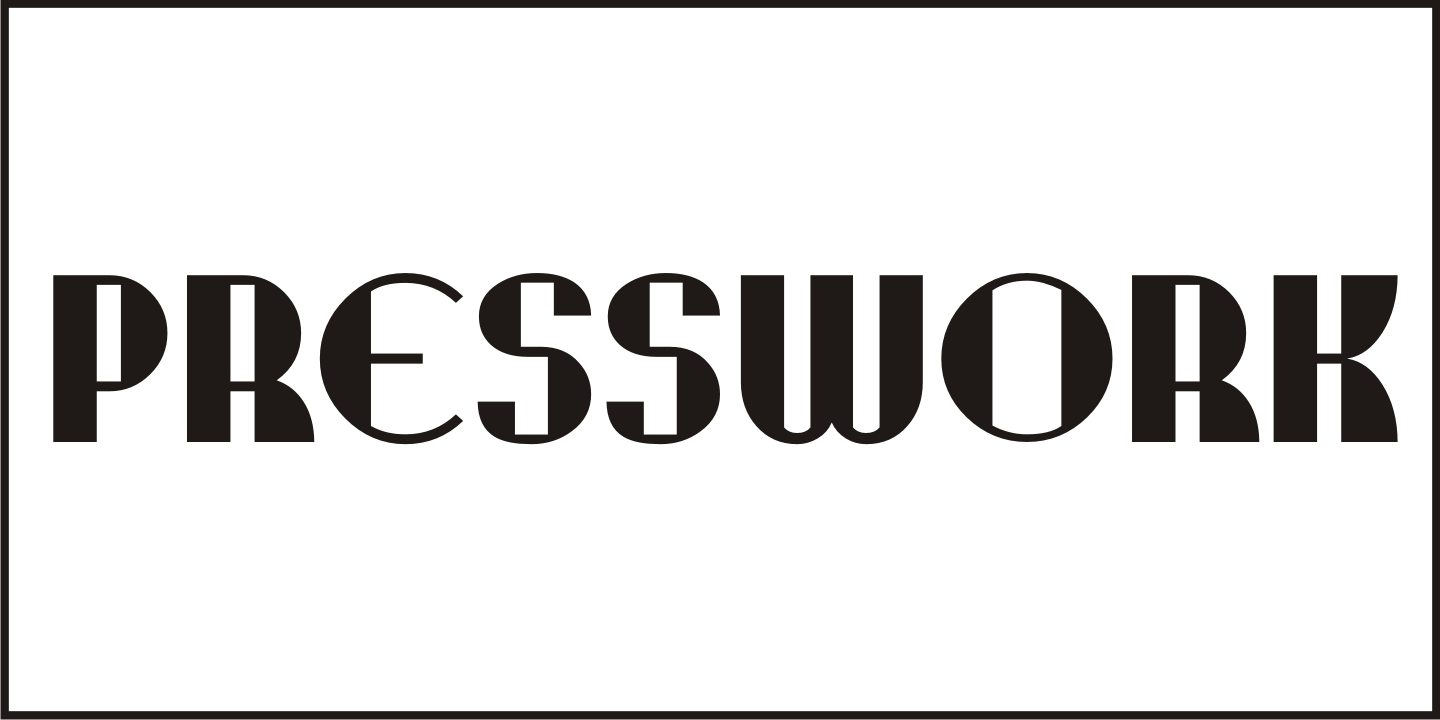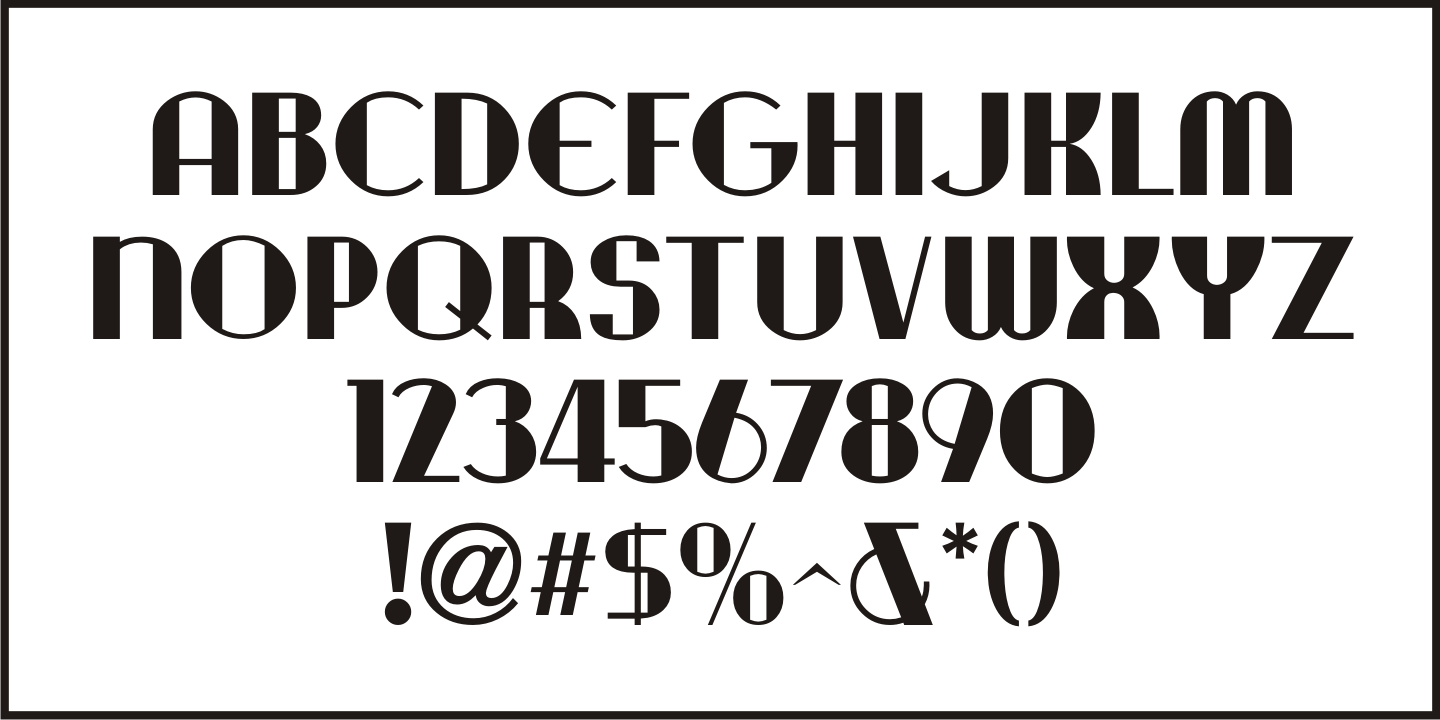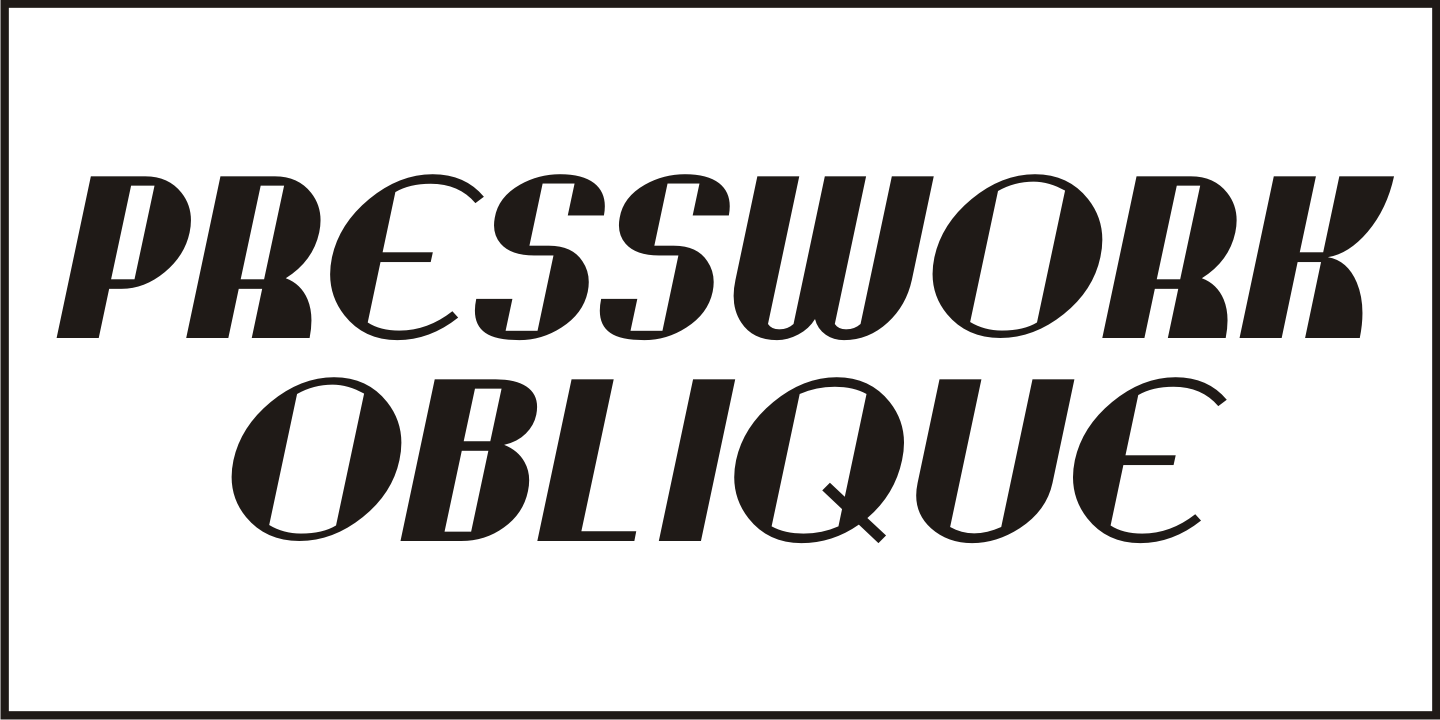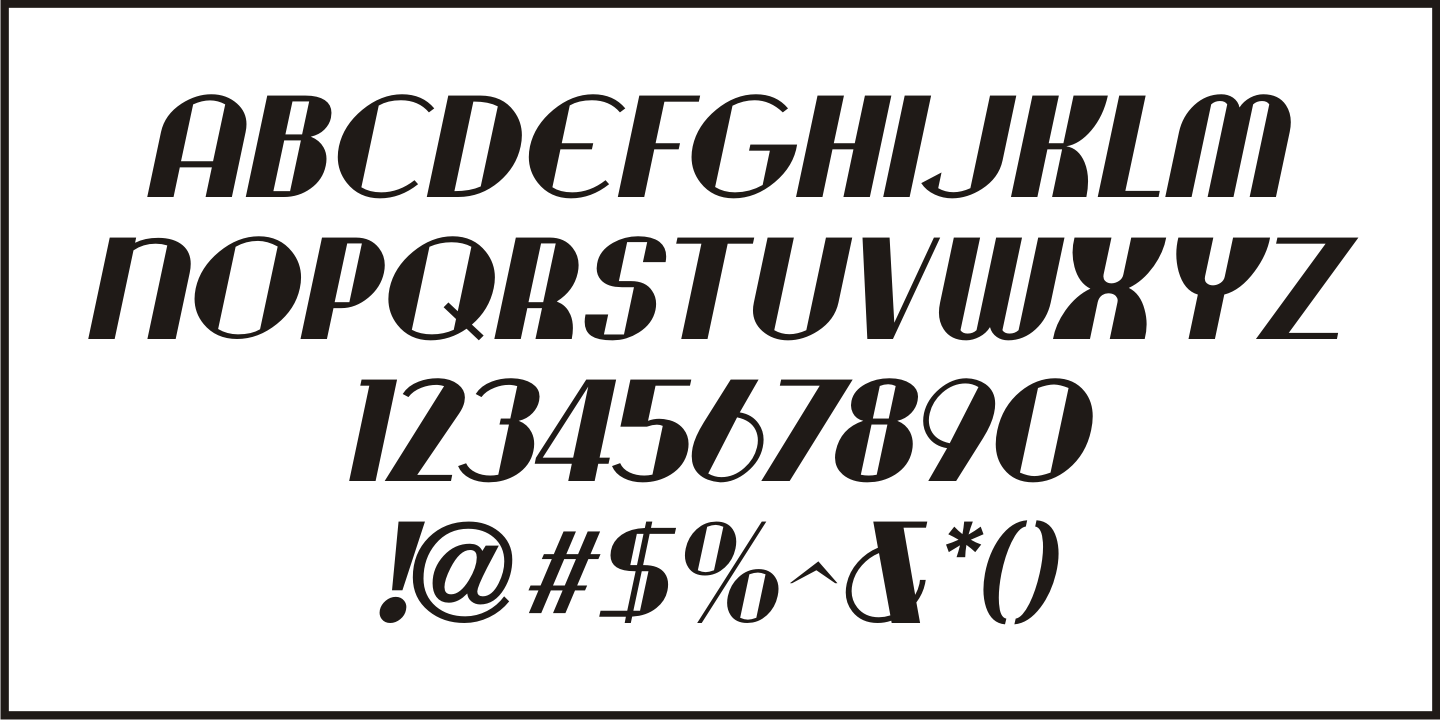
Presswork
Sheet music for the 1939 song 'On the Paraña' featured Art Deco hand lettering in a classic 'thick and thin' style, with many stylized characters.
The publisher of the song was the Theodore Presser Company of Philadelphia, so the name 'Presswork' aptly fit this typographic design.
Presswork JNL is available in both regular and oblique versions.
For trivia buffs, the Paraña is a river in Brazil.
Presswork JNL Regular by Jeff Levine Fonts